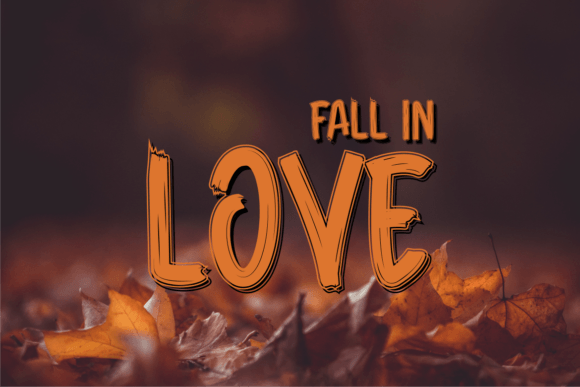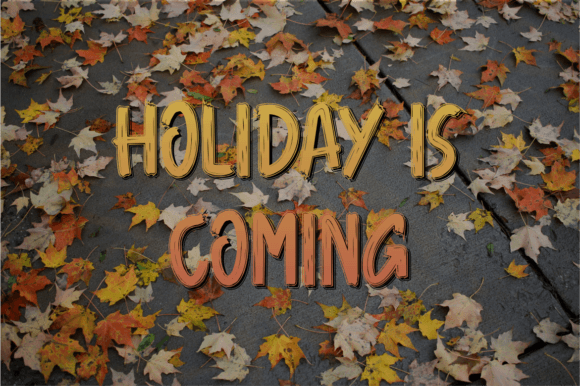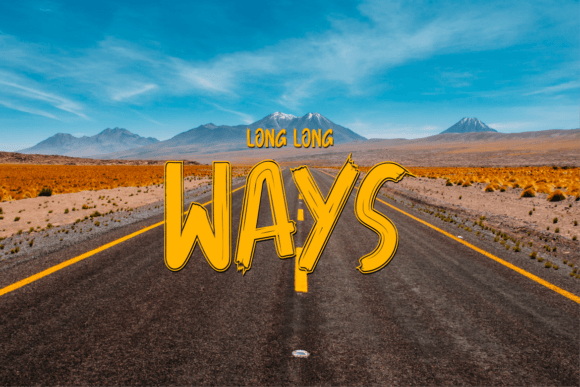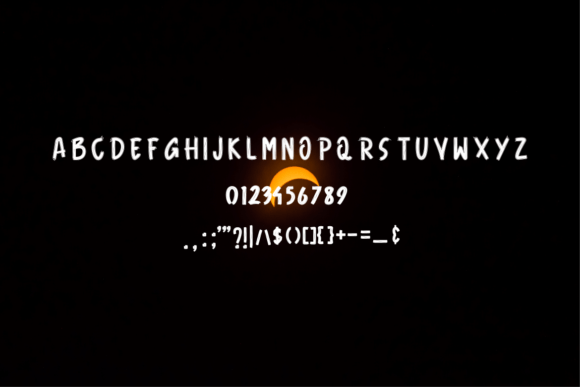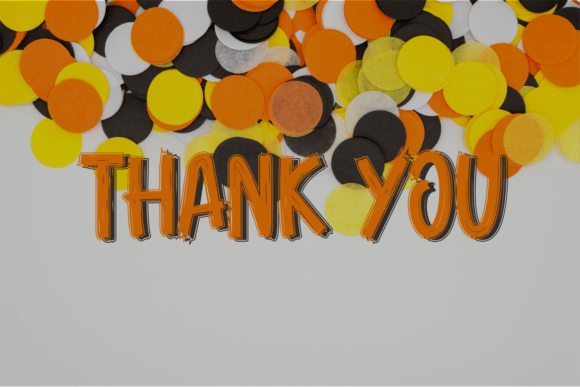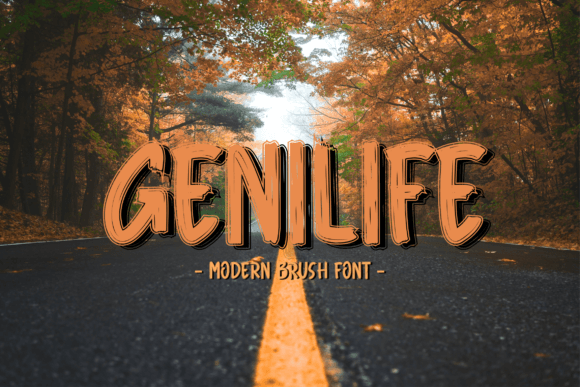
Introducing Genilife Font: The Modern and Fresh Handwritten Display Font
Are you tired of using the same old fonts for your designs? Do you want to add a touch of modernity and freshness to your creations? Look no further than Genilife Font, a stunning handwritten display font that’s perfect for designers and crafters alike. In this article, we’ll dive into the world of Genilife Font, exploring its unique features, benefits, and uses.
What is Genilife Font?
Genilife Font is a modern and fresh handwritten display font that’s designed to help you create cool, trendy designs. Its unique appearance is characterized by flowing lines, subtle imperfections, and a dash of personality. This font is perfect for anyone looking to add a touch of whimsy and sophistication to their designs.
Key Features of Genilife Font
- Unique and Handwritten: Genilife Font is a handwritten font that’s been carefully crafted to provide a unique and personal touch to your designs.
- Modern and Fresh: This font is perfect for designers and crafters who want to stay on top of the latest trends and styles.
- Display Font: Genilife Font is a display font that’s designed to make a statement. It’s perfect for headlines, titles, and other prominent text elements.
- Easy to Read: Despite its unique and handwritten nature, Genilife Font is easy to read and understand, making it perfect for a wide range of design applications.
Benefits of Using Genilife Font
So, why should you choose Genilife Font for your designs? Here are just a few benefits of using this amazing font:
- Adds Personality to Your Designs: Genilife Font is a great way to add a touch of personality and whimsy to your designs, setting them apart from the crowd.
- Perfect for Branding and Marketing: This font is perfect for branding and marketing materials, such as logos, brochures, and social media graphics.
Uses of Genilife Font
Genilife Font is a versatile font that can be used in a wide range of design applications, including:
- Logos and Branding: Use Genilife Font to create a unique and memorable logo for your business or brand.
- Social Media Graphics: This font is perfect for social media graphics, such as Facebook and Twitter headers.
- Brochures and Flyers: Genilife Font can be used to create eye-catching brochures and flyers that grab attention.
- Web Design: Use this font to add a touch of personality to your website’s design.
Tips for Using Genilife Font
Here are a few tips for using Genilife Font in your designs:
- Use it Sparingly: Genilife Font is a display font that’s designed to make a statement. Use it sparingly to avoid overwhelming your design.
- Pair it with Other Fonts: This font pairs well with other fonts, such as sans-serif fonts. Experiment with different combinations to find the perfect look for your design.
- Experiment with Colors and Textures: Genilife Font looks great in a variety of colors and textures. Experiment with different options to find the perfect look for your design.
In conclusion, Genilife Font is a modern and fresh handwritten display font that’s perfect for designers and crafters alike. Its unique appearance and versatility make it a great addition to any design project. Whether you’re looking to create a stunning logo, social media graphic, or website design, Genilife Font is the perfect choice. So why wait? Download Genilife Font today and start creating cool, trendy designs that stand out from the crowd!